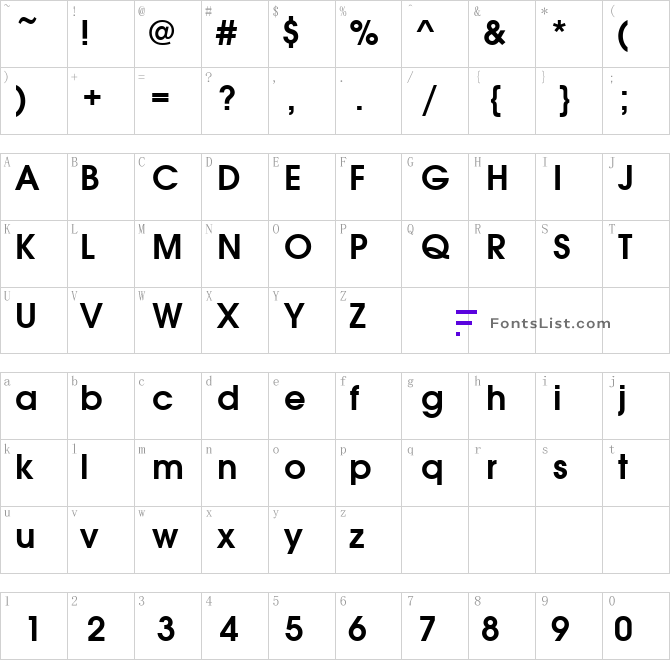
- Font Name:AvantGardeITCTT
AvantGardeITCTT-Demi.ttf is a very beautiful artistic font, AvantGardeITCTT-Demi.ttf is widely used in the design and printing of various books and pictures,AvantGardeITCTT-Demi.ttf has a strong visual impact,AvantGardeITCTT-Demi.ttf is a commonly used font in newspapers, magazines and books, and is used in posters, e-commerce Poster design, store design, logo design, font design and other fields.AvantGardeITCTT-Demi.